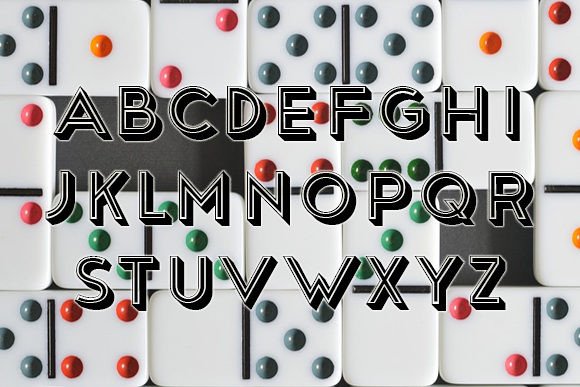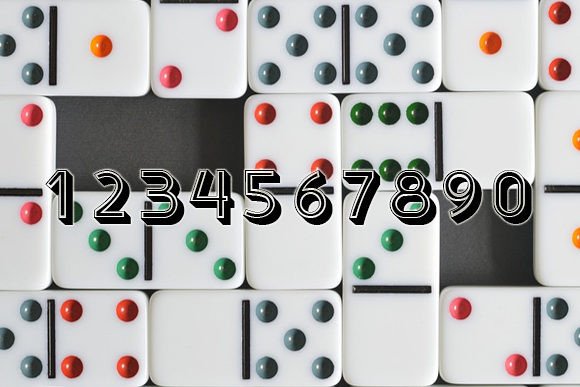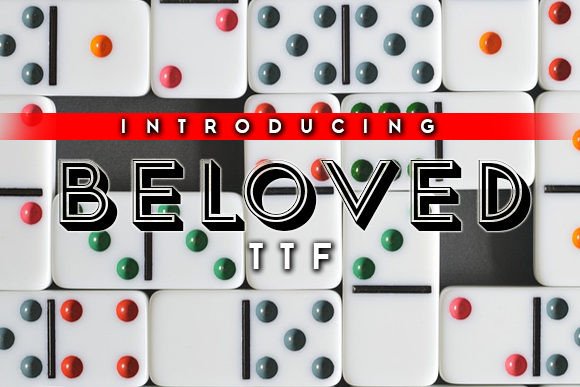
Introducing Beloved Font: The Perfect Choice for Your Design Needs
Are you a designer or crafter looking for a font that can add a touch of elegance and sophistication to your projects? Look no further than the Beloved Font. This catchy and elegant 3D font with sharp corners is perfect for making a statement on your shirts, banners, and other design materials.
What Makes Beloved Font So Special?
The Beloved Font is a unique and versatile font that can be used for a variety of design projects. Its 3D effect gives it a bold and eye-catching appearance, while its sharp corners add a touch of sophistication and elegance. Whether you’re designing a logo, creating a banner, or making a t-shirt, this font is sure to make your project stand out.
Key Features of Beloved Font
• Catchy and Elegant Design: The Beloved Font has a catchy and elegant design that is sure to grab attention.
• 3D Effect: The font’s 3D effect gives it a bold and eye-catching appearance.
• Sharp Corners: The font’s sharp corners add a touch of sophistication and elegance.
• Versatile: The Beloved Font can be used for a variety of design projects, including logos, banners, t-shirts, and more.
How to Use Beloved Font in Your Designs
• Pair it with a Simple Background: The Beloved Font is bold and eye-catching, so it’s best to pair it with a simple background that won’t compete with the font.
• Experiment with Colors: The font looks great in a variety of colors, so don’t be afraid to experiment and find the perfect color for your design.
• Use it for Headlines and Titles: The Beloved Font is perfect for headlines and titles, as it’s bold and eye-catching.
Why Designers and Crafters Love Beloved Font
Designers and crafters love the Beloved Font for a variety of reasons. Here are a few:
• Easy to Read: The font is easy to read, even at small sizes.
• High-Quality Design: The font has a high-quality design that looks great in a variety of applications.
• Versatile: The font can be used for a variety of design projects, from logos and banners to t-shirts and more.
In conclusion, the Beloved Font is a catchy and elegant 3D font with sharp corners that is perfect for designers and crafters. Its unique design and versatility make it a great choice for a variety of design projects, from logos and banners to t-shirts and more. So why wait? Download the Beloved Font today and start creating stunning designs that will leave a lasting impression.